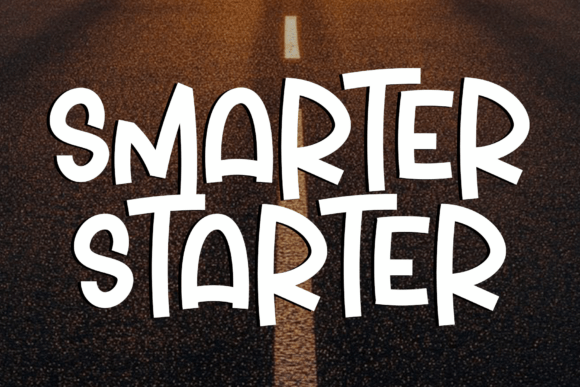
Smarter Starter Font Review
Introduction — What is Smarter Starter?
Smarter Starter is a lovely and timeless display font that stands out in the world of typography. Whether you're designing a logo, branding materials, or eye-catching quotes, this font offers a unique blend of elegance and clarity. With its clean lines and refined details, Smarter Starter is ideal for projects that require a touch of sophistication. If you're looking for a versatile and stylish typeface, the Smarter Starter free download is a great starting point. This font is perfect for both personal and commercial use, making it a valuable addition to any designer's toolkit.
The visual appeal of Smarter Starter lies in its balanced structure and subtle variations in stroke weight. Each letter is crafted with care, ensuring that it maintains a professional look across different applications. Unlike many other display fonts, Smarter Starter doesn’t sacrifice readability for style. Its versatility makes it an excellent choice for a wide range of design needs, from digital to print media.
Letterforms and Weight
The letterforms of Smarter Starter are carefully designed to balance aesthetics with functionality. The font features a medium weight that provides enough contrast to stand out without being overwhelming. The curves are smooth and well-proportioned, giving the font a polished appearance. This makes it suitable for both large-scale designs and smaller text elements where clarity is essential.
Spacing and Mood
Smarter Starter has a generous spacing that enhances legibility, especially at smaller sizes. This feature makes it ideal for headings, titles, and other prominent text elements. The font exudes a calm and confident mood, making it a strong choice for branding and editorial projects. Its modern yet timeless feel ensures that it remains relevant across different design trends.
Compared to other display fonts, Smarter Starter offers a more refined and elegant look. It strikes a balance between boldness and subtlety, making it a go-to option for designers who want a font that can adapt to various contexts.
Smarter Starter for Logo Design
When it comes to logo design, the right font can make all the difference. Smarter Starter is an excellent choice for creating logos that convey professionalism and creativity. Its clean lines and balanced proportions ensure that it looks sharp on both digital and printed materials. Whether you're designing a tech startup logo or a lifestyle brand, Smarter Starter adds a touch of class and sophistication.
Smarter Starter for Branding
Branding requires consistency and impact, and Smarter Starter delivers both. Its versatility allows it to be used across various brand assets, including business cards, packaging, and promotional materials. The font’s ability to maintain clarity at different sizes makes it ideal for maintaining a cohesive brand identity. For designers looking for a premium display font, Smarter Starter is a reliable choice.
Smarter Starter for Wedding Invitations
Wedding invitations demand a certain level of elegance, and Smarter Starter meets that standard. Its refined appearance works well for formal events, adding a touch of grace to any design. Whether you’re creating traditional or modern wedding stationery, this font offers a timeless look that complements a variety of styles. Its clean and readable form ensures that the message is clear while maintaining a visually appealing layout.
Font Pairing & Combinations
Pairing Smarter Starter with other fonts can enhance the overall design and create a more dynamic visual hierarchy. One effective combination is pairing it with a serif font like Georgia or Garamond. This contrast brings out the modernity of Smarter Starter while adding a classic touch to the design.
Another popular pairing is with a sans-serif font such as Helvetica or Arial. This combination creates a clean and contemporary look, making it ideal for digital projects like websites or social media graphics. For a more creative approach, consider pairing Smarter Starter with a script font like Brush Script or Lobster. This pairing adds a personal and artistic flair to the design, making it perfect for special occasions or artistic projects.
What fonts pair well with Smarter Starter depends on the intended use and design style. Experimenting with different combinations can help you find the perfect match for your project. Always test the pairings in real-world scenarios to ensure they work well together.
Comparing Smarter Starter with similar fonts can also provide valuable insights. Smarter Starter vs other display fonts reveals its strengths in balance, clarity, and versatility. Whether you're working on a logo, branding project, or editorial layout, Smarter Starter offers a reliable and stylish solution.